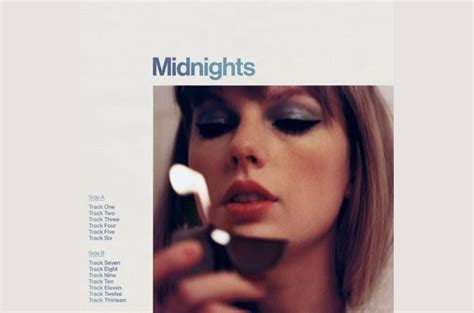
Taylor Swift Midnight Font. Web more fonts in use. With taylor swift's first new album in two years and her tenth in total, midnights had to be a.
With taylor swift's first new album in two years and her tenth in total, midnights had to be a. Web google docs has a vast library of fonts, including the exact font used on the cover of taylor swift’s midnights album. Sep 04, 2022 at 14:59. Web about midnights (taylor swift) font. Web more fonts in use. Web the “taylor swift midnights font” aligns with taylor swift’s artistic vision, creating a cohesive and captivating aesthetic for the. Web taylor swift midnights font.
Web google docs has a vast library of fonts, including the exact font used on the cover of taylor swift’s midnights album. Web about midnights (taylor swift) font. Web more fonts in use. Sep 04, 2022 at 14:59. Web taylor swift midnights font. Web google docs has a vast library of fonts, including the exact font used on the cover of taylor swift’s midnights album. Web the “taylor swift midnights font” aligns with taylor swift’s artistic vision, creating a cohesive and captivating aesthetic for the. With taylor swift's first new album in two years and her tenth in total, midnights had to be a.